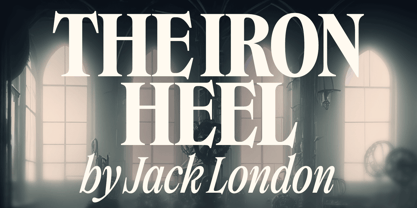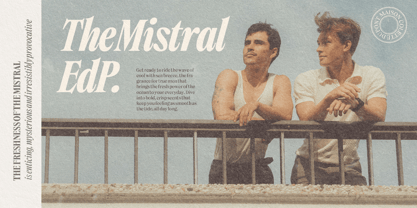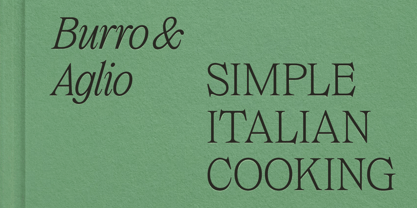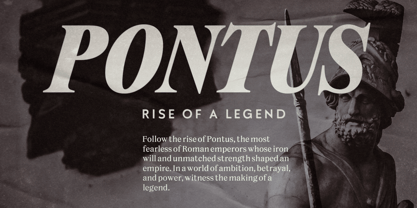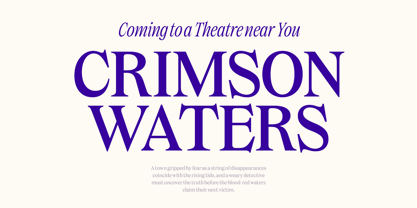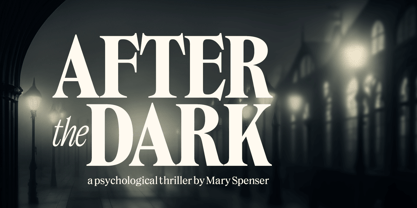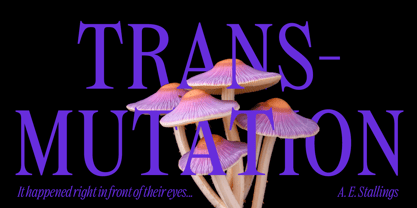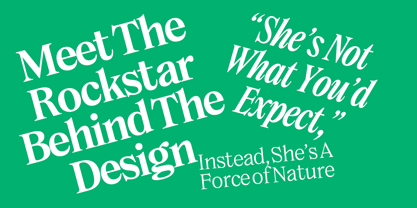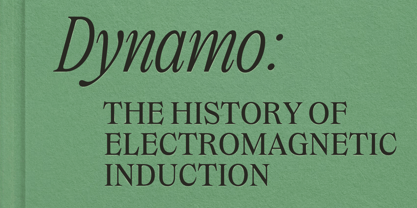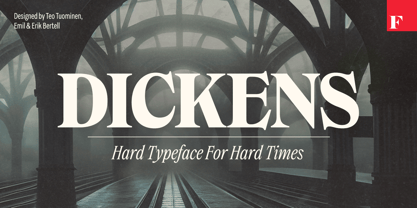
Dickens
by Fenotype
The Dickens Font Family was designed by Emil Karl Bertell, Erik Jarl Bertell, Teo Tuominen and published by Fenotype. Dickens contains 28 styles and family package options.
As the 21st century’s faith in the future is shattered, the zeitgeist is no longer captured by resorting to universal, neutral-looking, sans serif fonts – but rather by serifed ones that express tradition and severity, with quirks and personality. Dickens breathes a hard-working vitality. It may not be universal in appearance – but it is surprisingly local. The font family is equally suitable for use by a trendy natural cosmetics brand or as a brand font for a start-up that utilizes artificial intelligence, as it is for the visuals of a newly opened Bushwick micro brewery – bringing a lot of personality and a recognizable, distinct voice. Dickens is equipped with two different widths: the narrower one can survive even in tight times when public funding is being cut. The weights of the fonts range from thin to very thick, so you are sure to find the right tone. All fonts also have italic versions. On the other hand, there are no unnecessary features – this is a hard font for hard times, after all.
Designers: Emil Karl Bertell, Erik Jarl Bertell, Teo Tuominen
Publisher: Fenotype
Foundry: Fenotype
Design Owner: Fenotype
Dickens